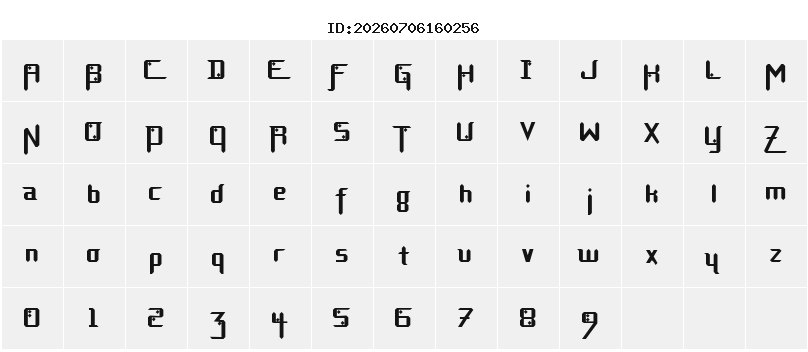
Diamond Fantasy Preview
• Font Name: Diamond Fantasy
• Full Font Name: Diamond Fantasy Normal
About Diamond Fantasy.ttf
Diamond Fantasy.ttf is a modern, elegant sans-serif font designed for ultimate readability and visual harmony. Perfect for branding, headlines, web design, and print materials.